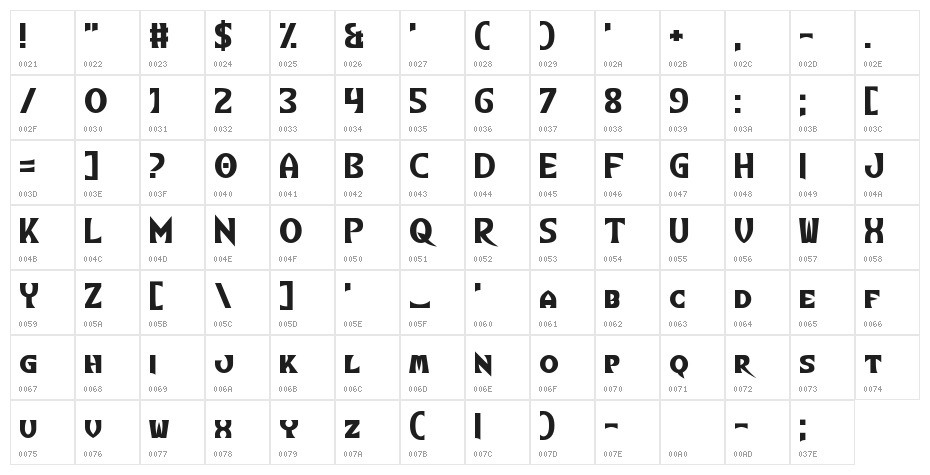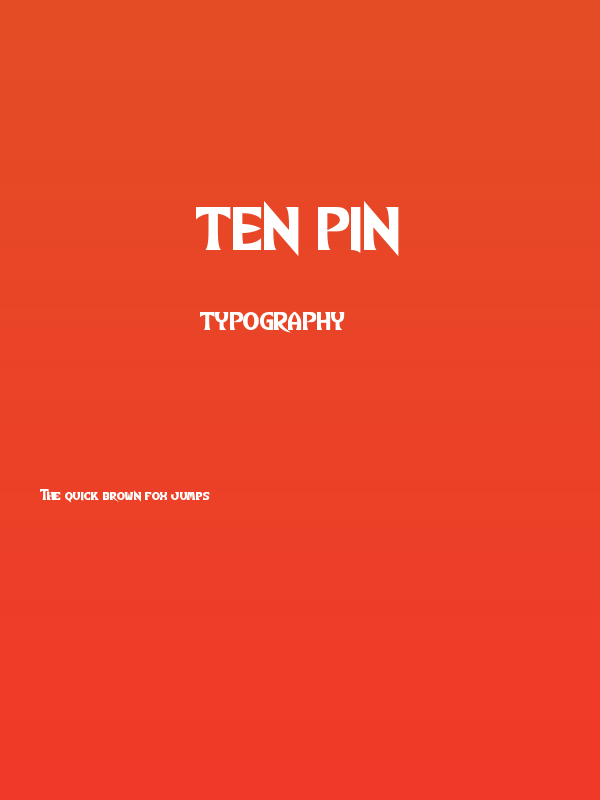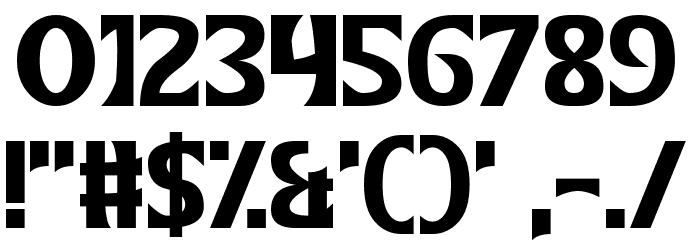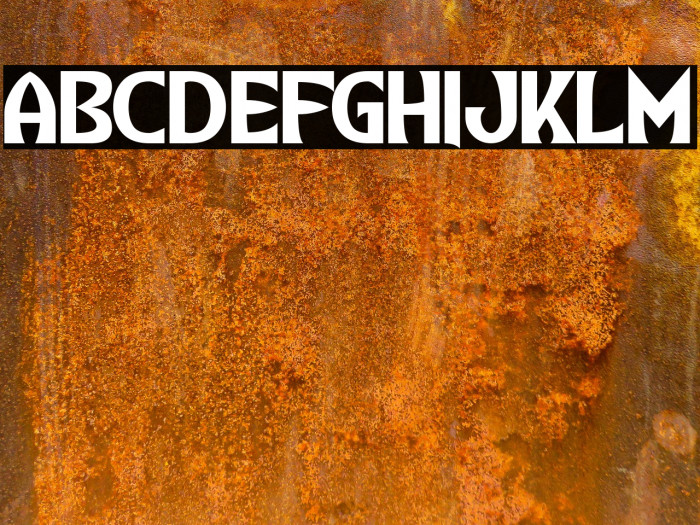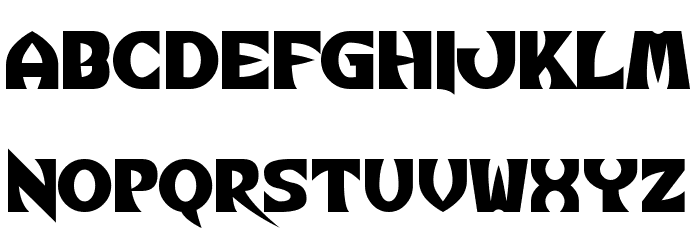
Ten Pin Font
Ten Pin Description
This font features a bold and dynamic style with sharp, angular edges and a strong geometric influence. The characters are designed with a unique flair, incorporating pointed elements that give a sense of movement and energy. The uppercase letters are particularly striking, with a consistent height and width that create a uniform appearance. The numerals and special characters maintain the same boldness, ensuring a cohesive look across all text. This font is ideal for projects that require a strong visual impact and a modern, edgy aesthetic.